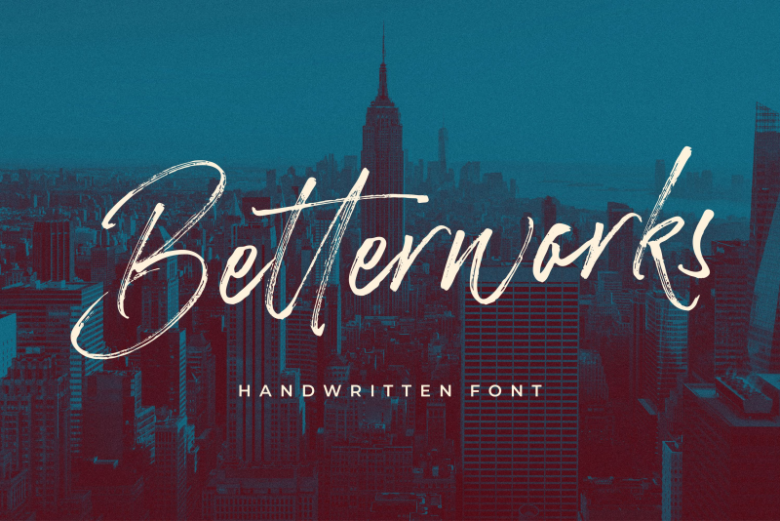
Betterworks Script Font
Betterworks Script is a modern and charming handbrushed font. It’s has a detailed brush that makes a natural impression. It’s comes with alternates (uppercase and lowercase), You can access it through the Opentype feature or by installing the alternates font file and also Swashes which you can access in separate fonts by typing A-I. This Font perfect for branding, advertising design, T-shirts, Websites, megazines, packaging, merch, and many others.